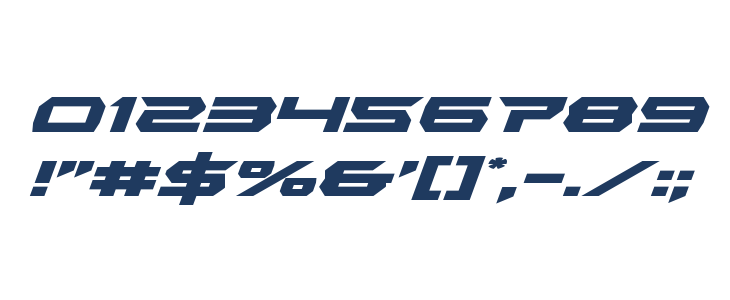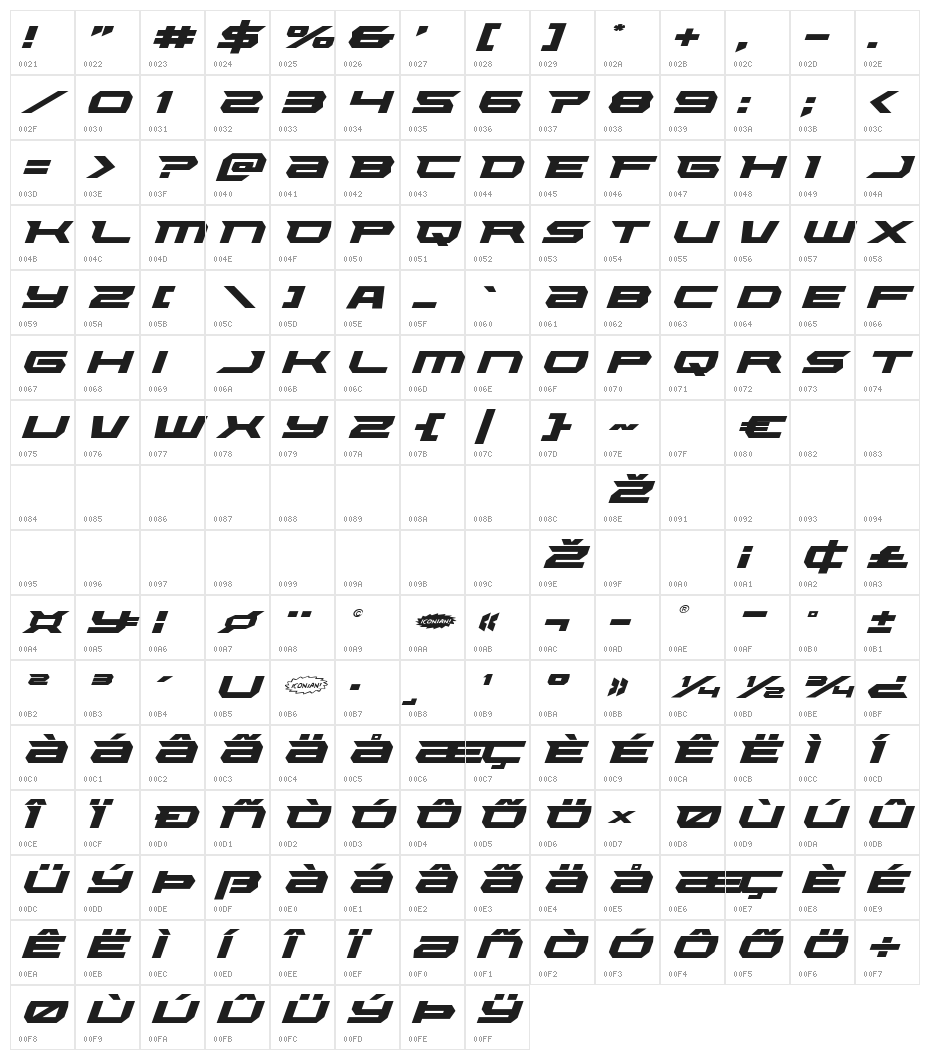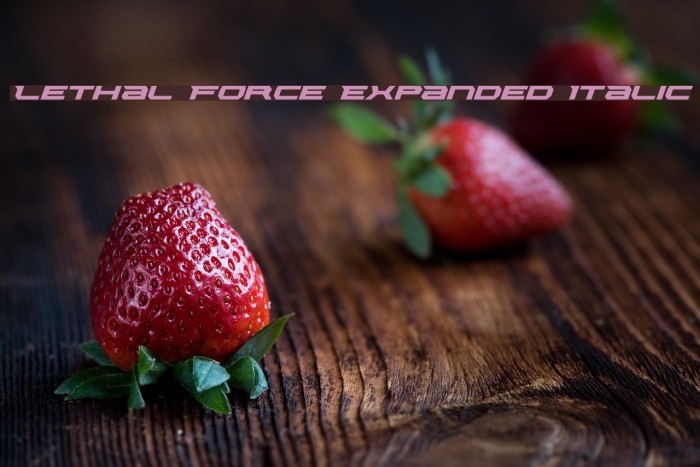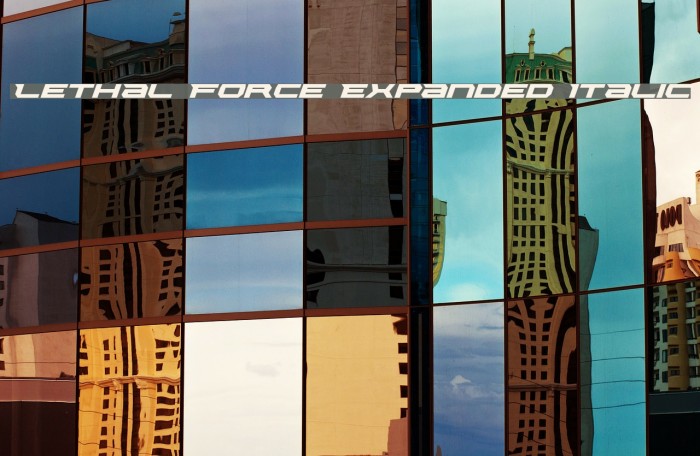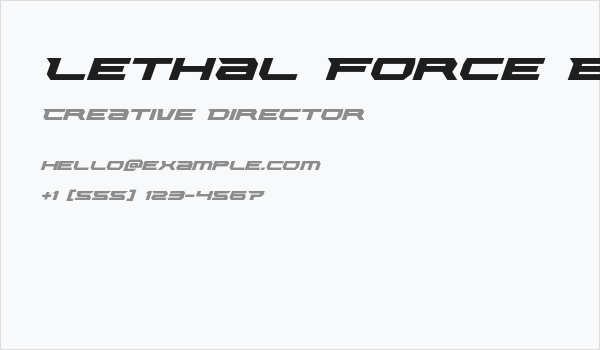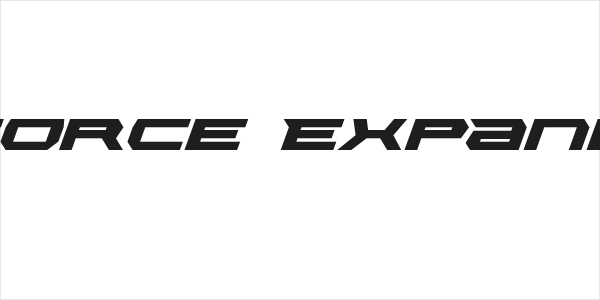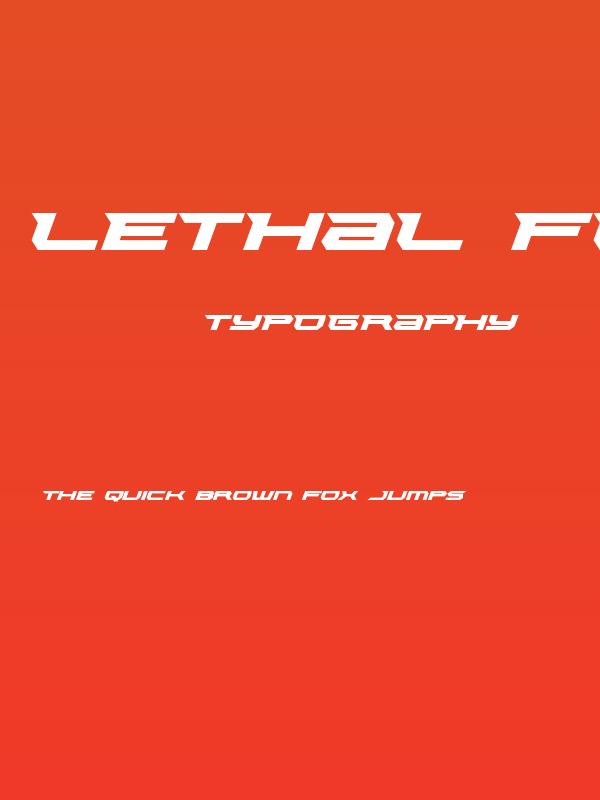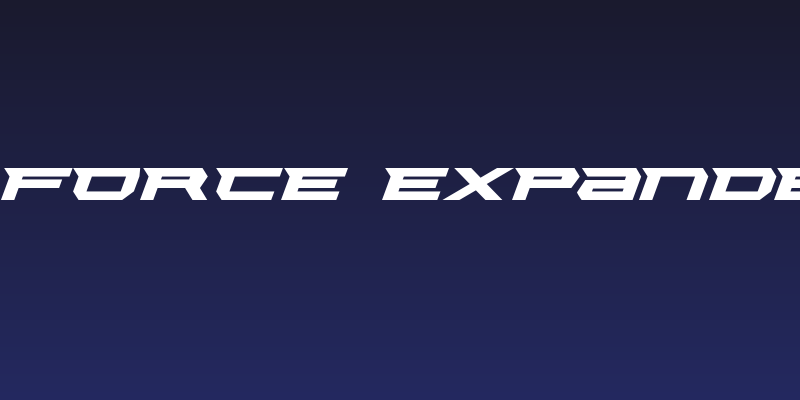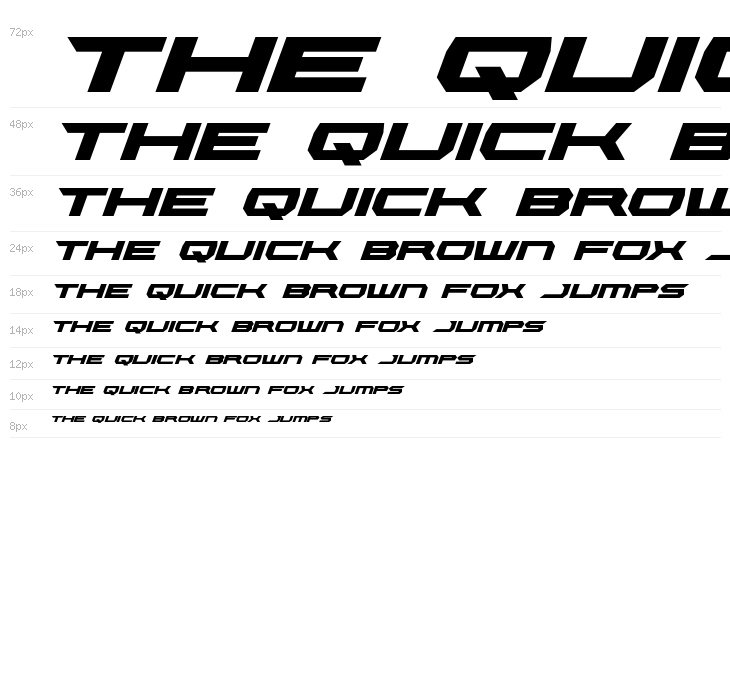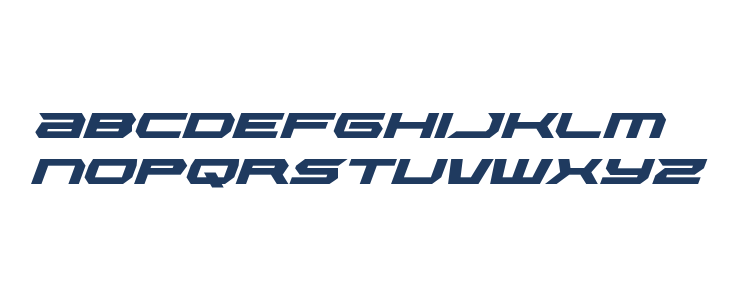
Lethal Force Expanded Italic Font
Lethal Force Expanded Italic Description
This font features a bold and aggressive design with sharp, angular lines that convey a sense of speed and power. The characters are italicized, adding a dynamic and forward-leaning appearance. The expanded width of the letters enhances its boldness, making it stand out prominently. The font's futuristic and edgy style is suitable for projects that require a strong visual impact. The uppercase and lowercase letters maintain a consistent design, while the numerals and special characters complement the overall aesthetic. This font is ideal for use in contexts where a modern, high-energy look is desired.
| Overall Style | Futuristic, Edgy |
| Proposed Projects | Ideal for sports branding, video game titles, action movie posters, and automotive advertisements. |